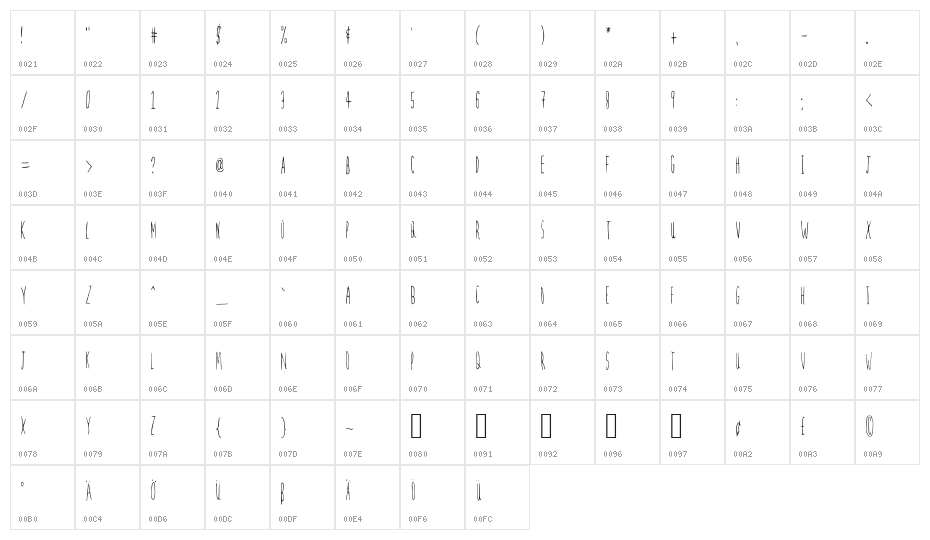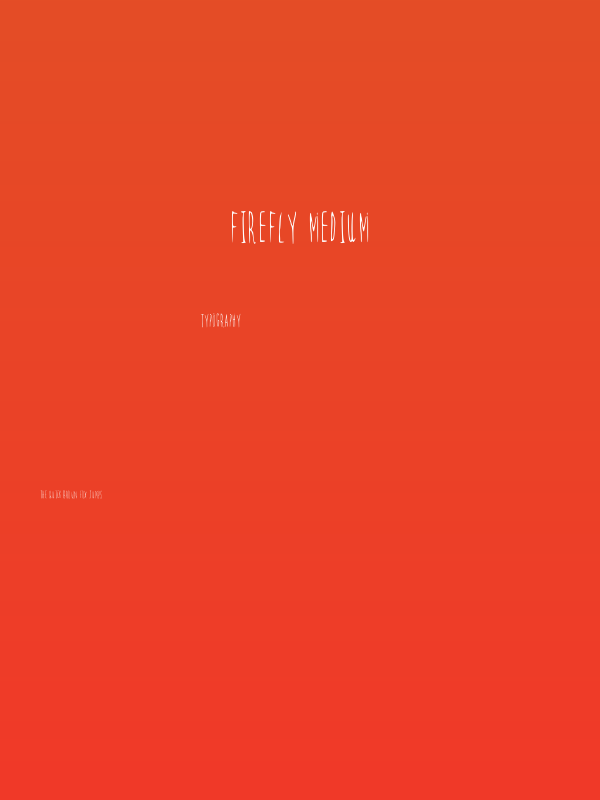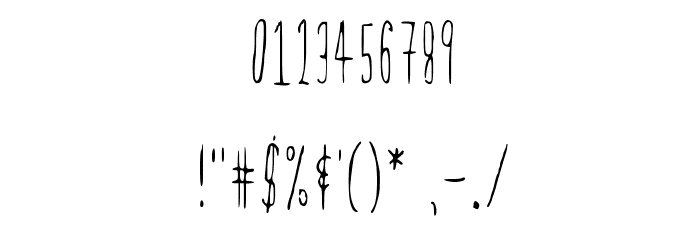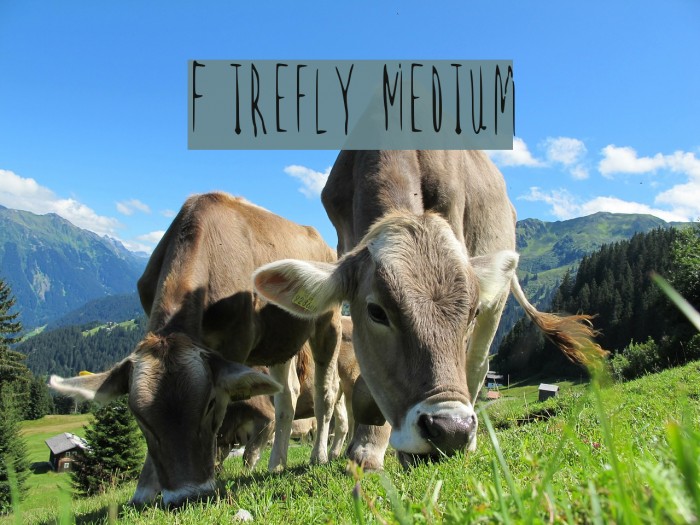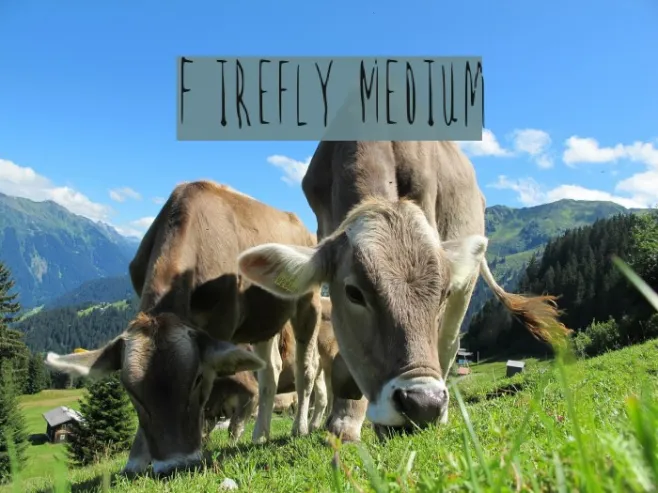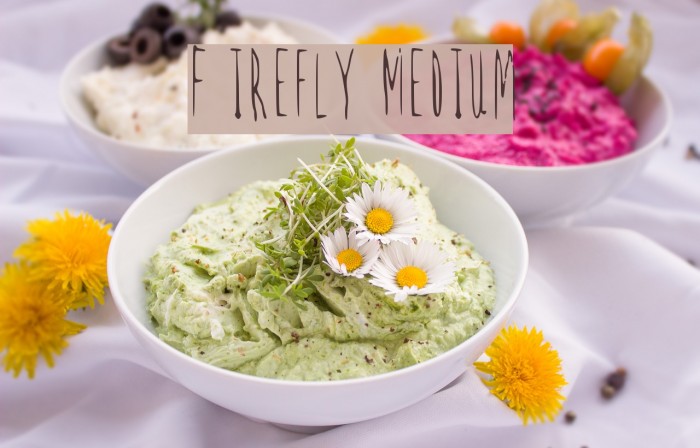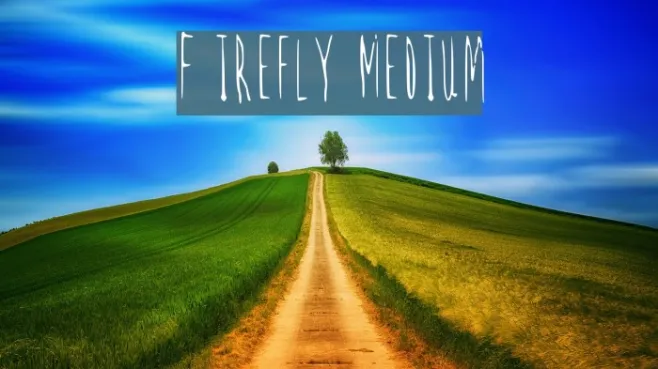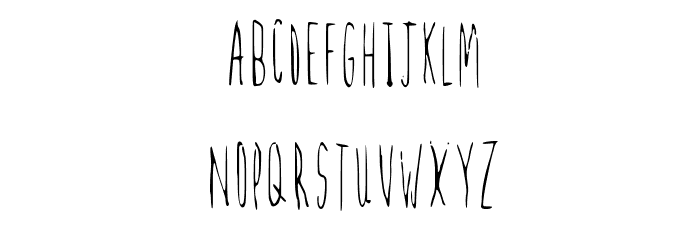
Firefly Medium Font
Firefly Medium Description
This font features a unique, hand-drawn style with elongated, narrow characters that give it a whimsical and artistic appearance. The strokes are uneven, adding a playful and informal touch. The uppercase and lowercase letters maintain a consistent height, contributing to its distinctive look. The numbers and special characters are designed with the same quirky flair, making them stand out in any design. This font is perfect for projects that require a creative and unconventional aesthetic.
| Proposed Projects | Ideal for creative projects such as children's book covers, artistic posters, and playful branding materials. |